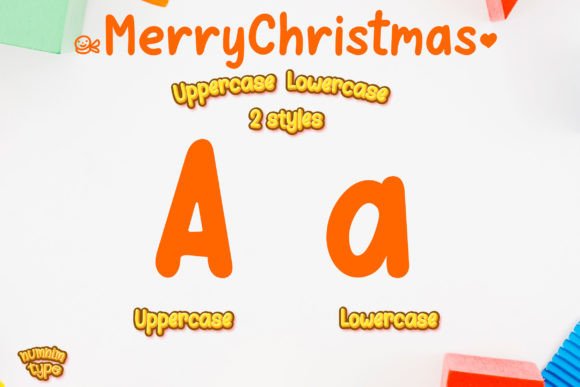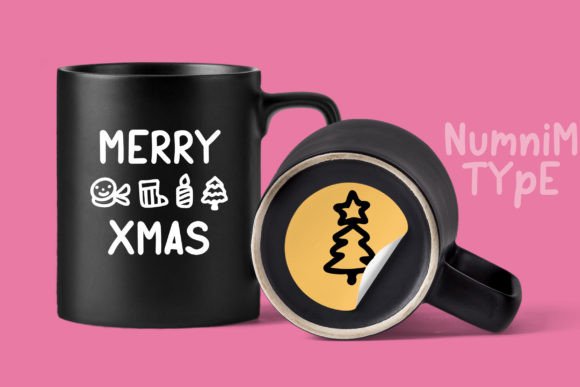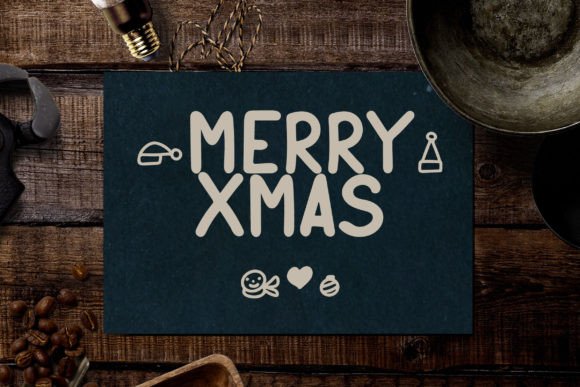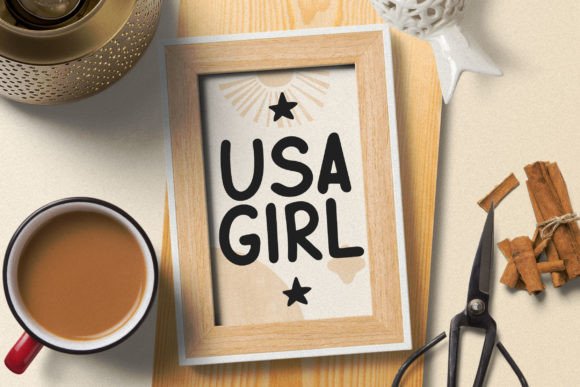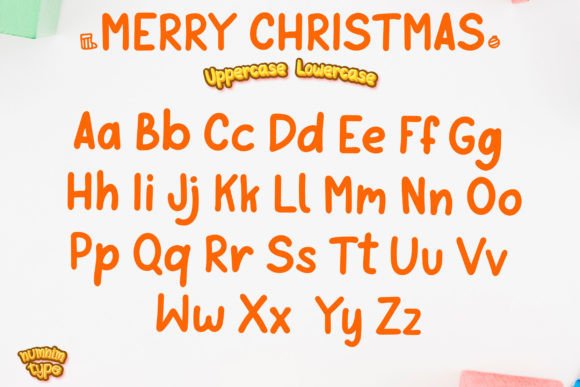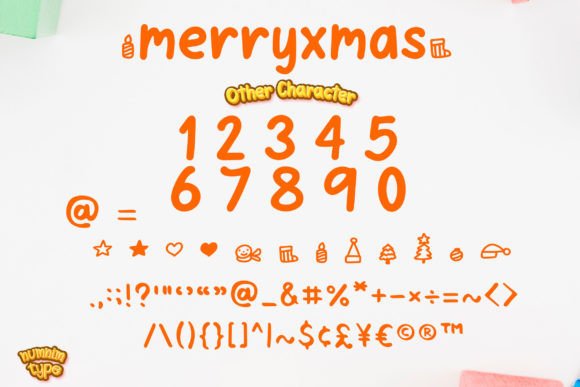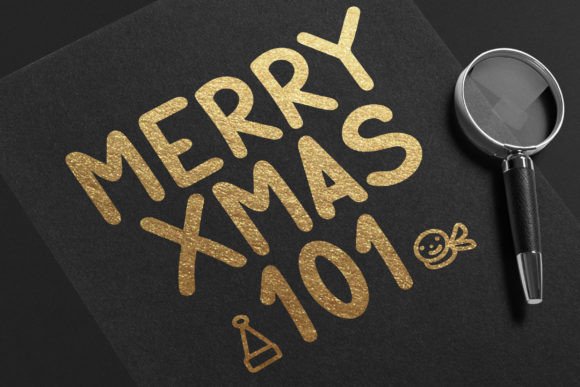
Merry Christmas Font
About Merry Christmas Font
Merry Christmas is a cute and uniquely crafted handwritten font. Its fun and playful characters make it the perfect font for stickers, mugs, t-shirts, ornaments, Christmas event cards, and more! This font is PUA encoded which means you can access all glyphs and swashes with ease!